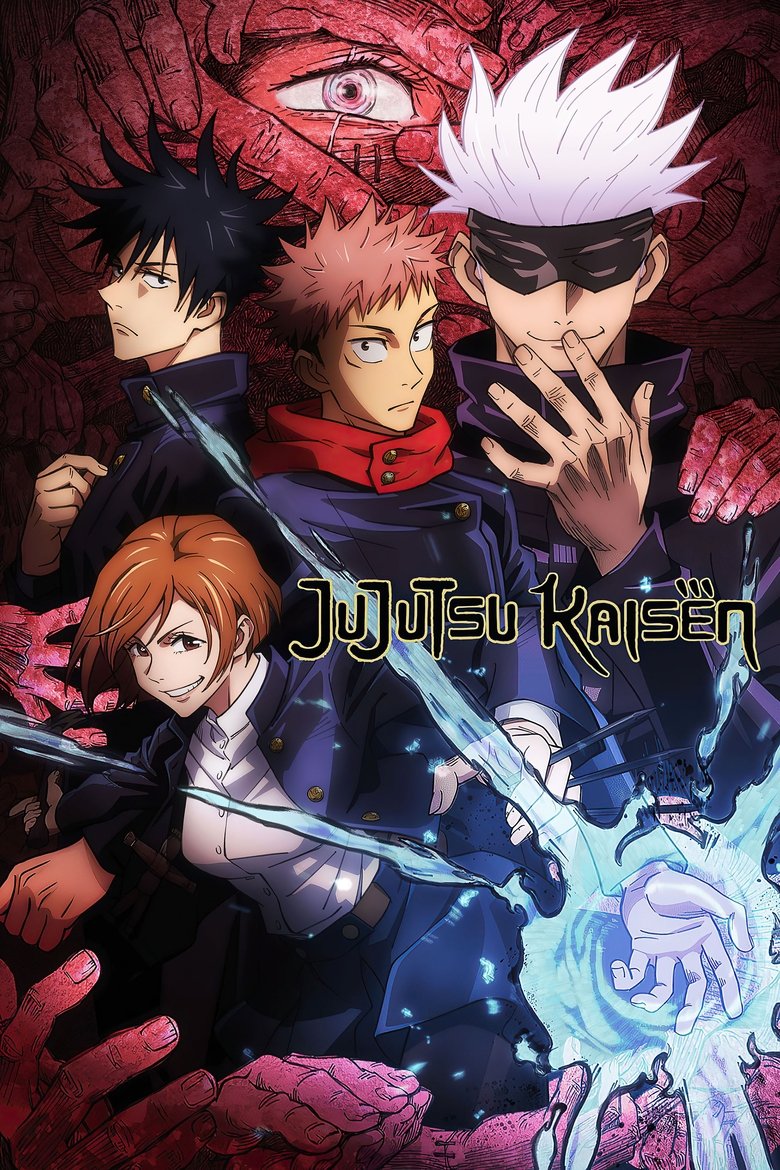
JUJUTSU KAISEN
About the Jujutsu Kaisen font
Jujutsu Kaisen's logo is a bold, brushed comic display. Bangers gives you that same high-energy shonen impact for free.
What font is used in the Jujutsu Kaisen logo?+
The original Jujutsu Kaisen logo uses custom lettering. This generator recreates the look with Bangers — a free, open-license font you can style and download.